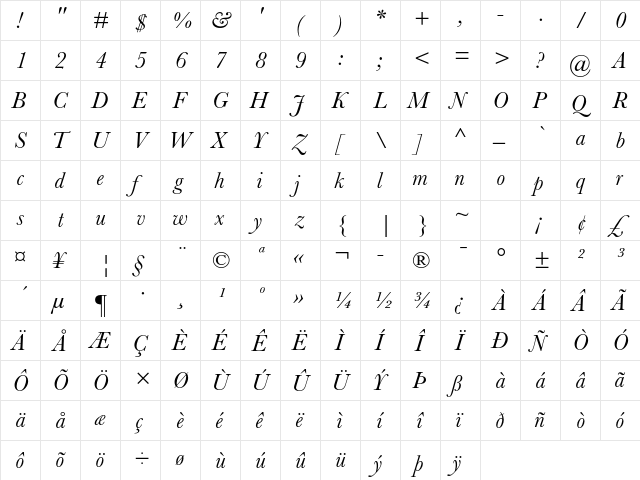
Baskerville MT Std Italic
Design Context for Baskerville MT Std Typeface
Baskerville MT Std offers clean, dependable letterforms without strong stylistic allegiance, making it a practical choice for designers who need flexibility. The slanted form adds forward momentum and visual energy.
Pro Tip: Try Baskerville MT Std for annotation and caption copy alongside an upright companion — the contrast in angle creates a dynamic but ordered typographic system.